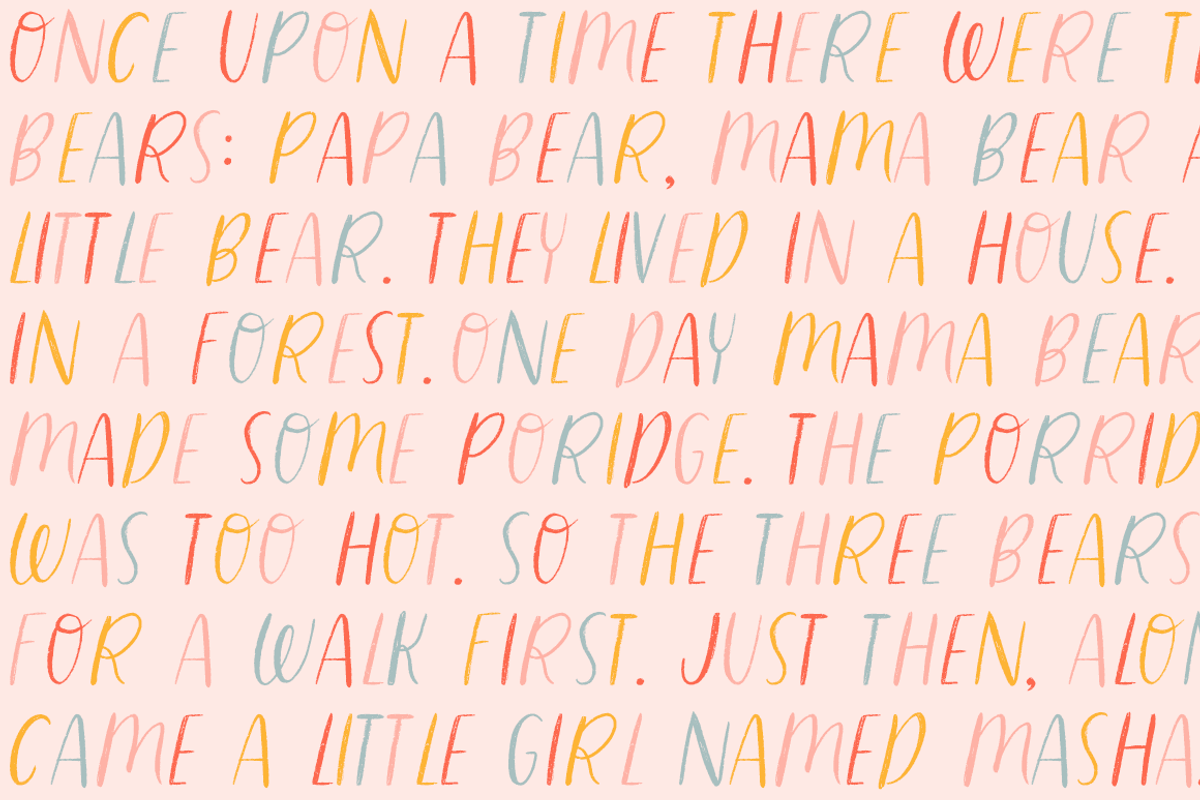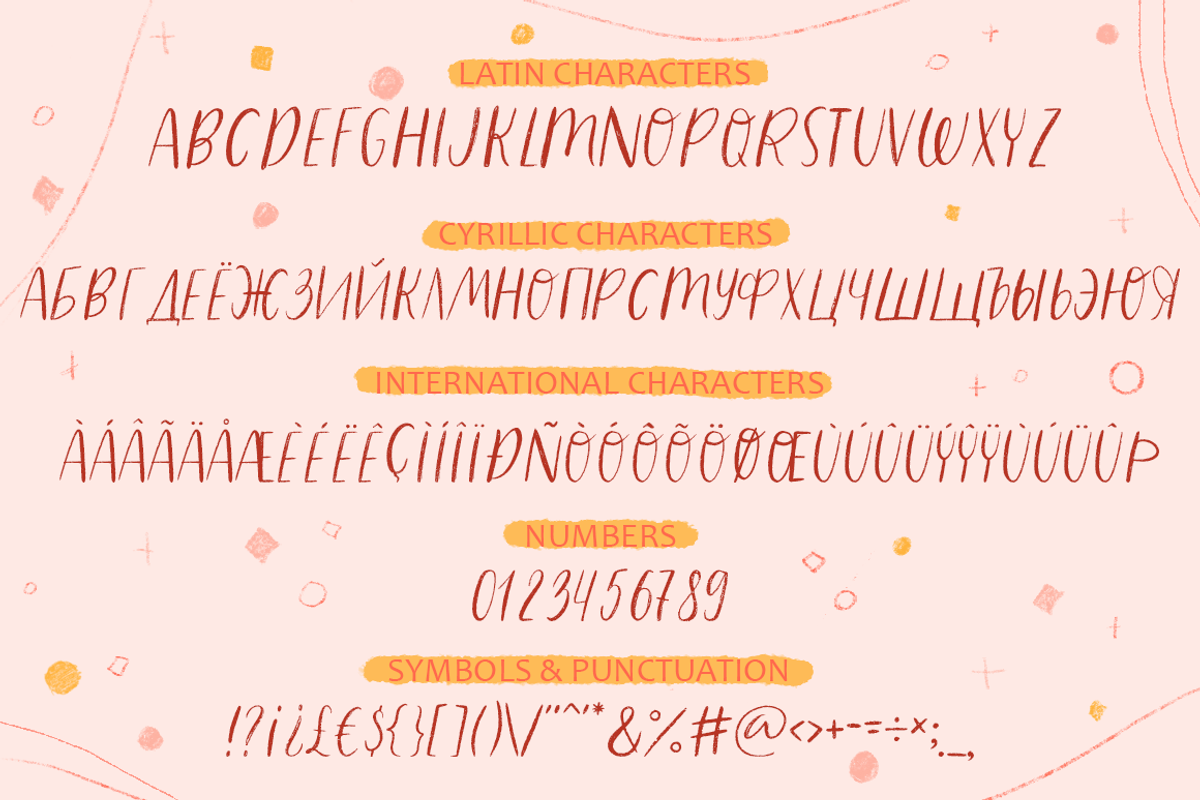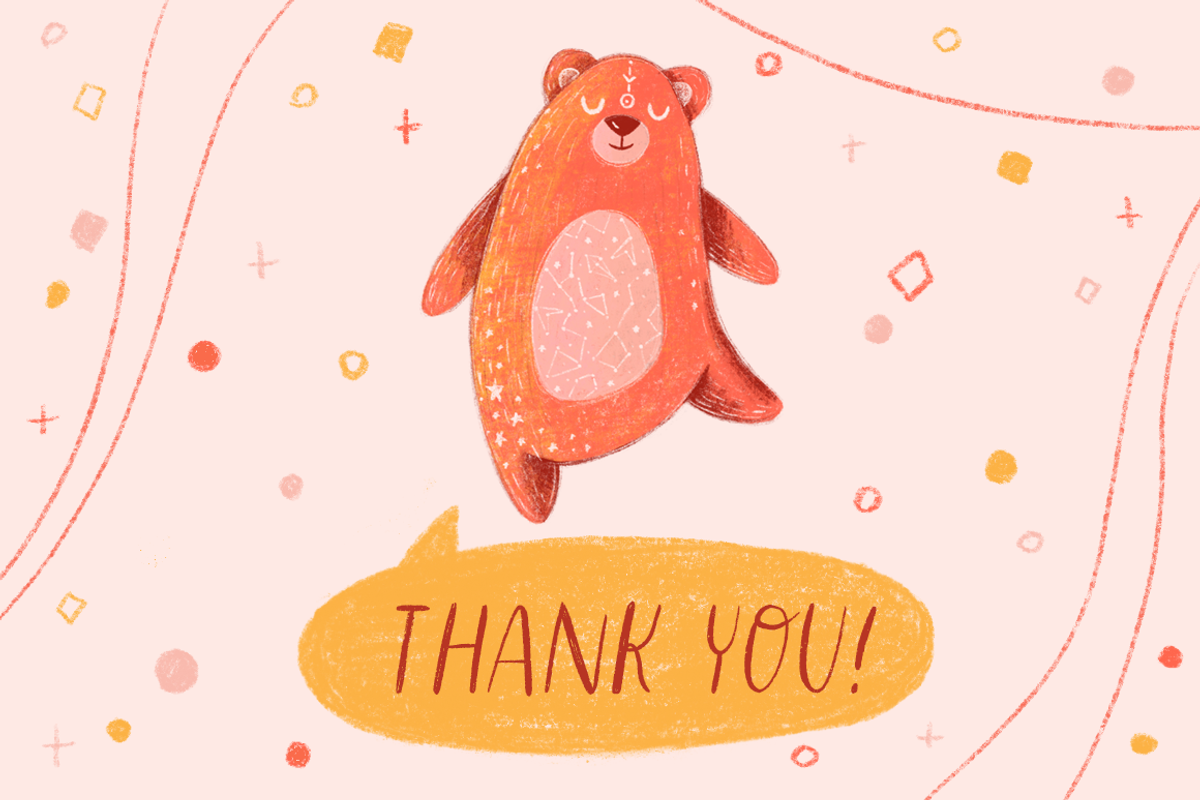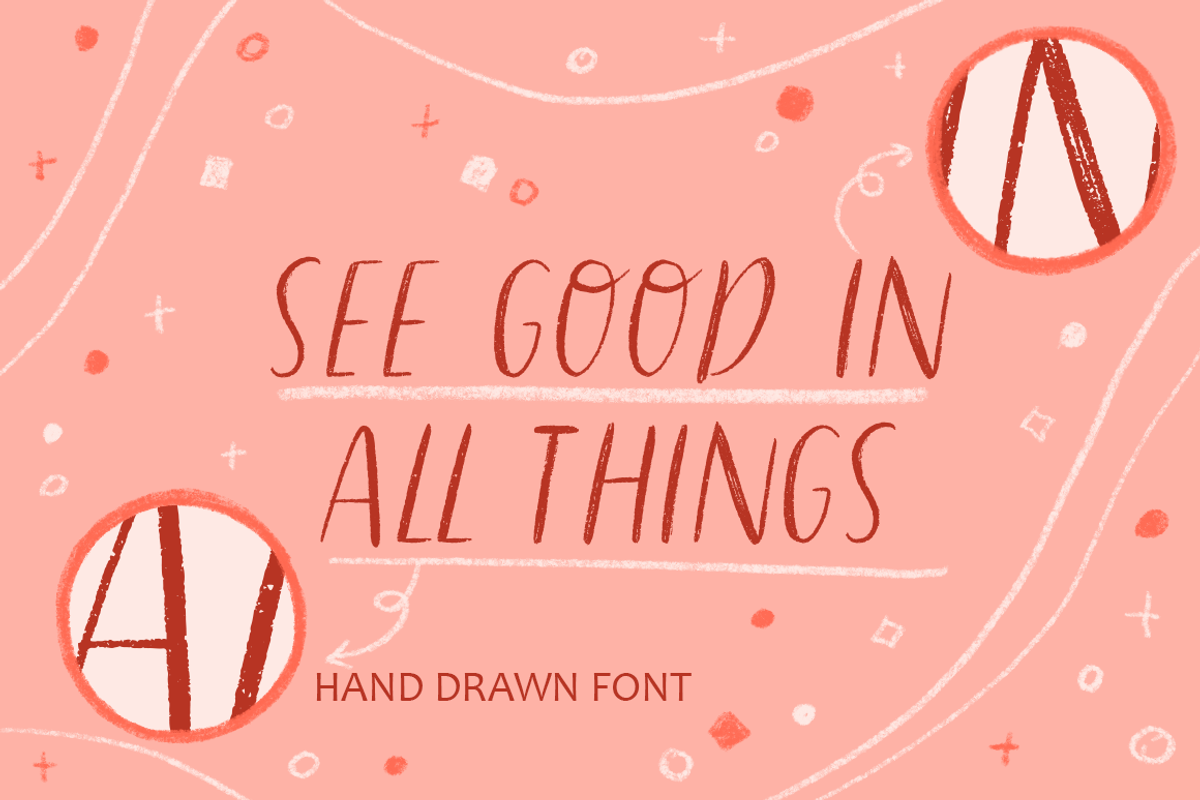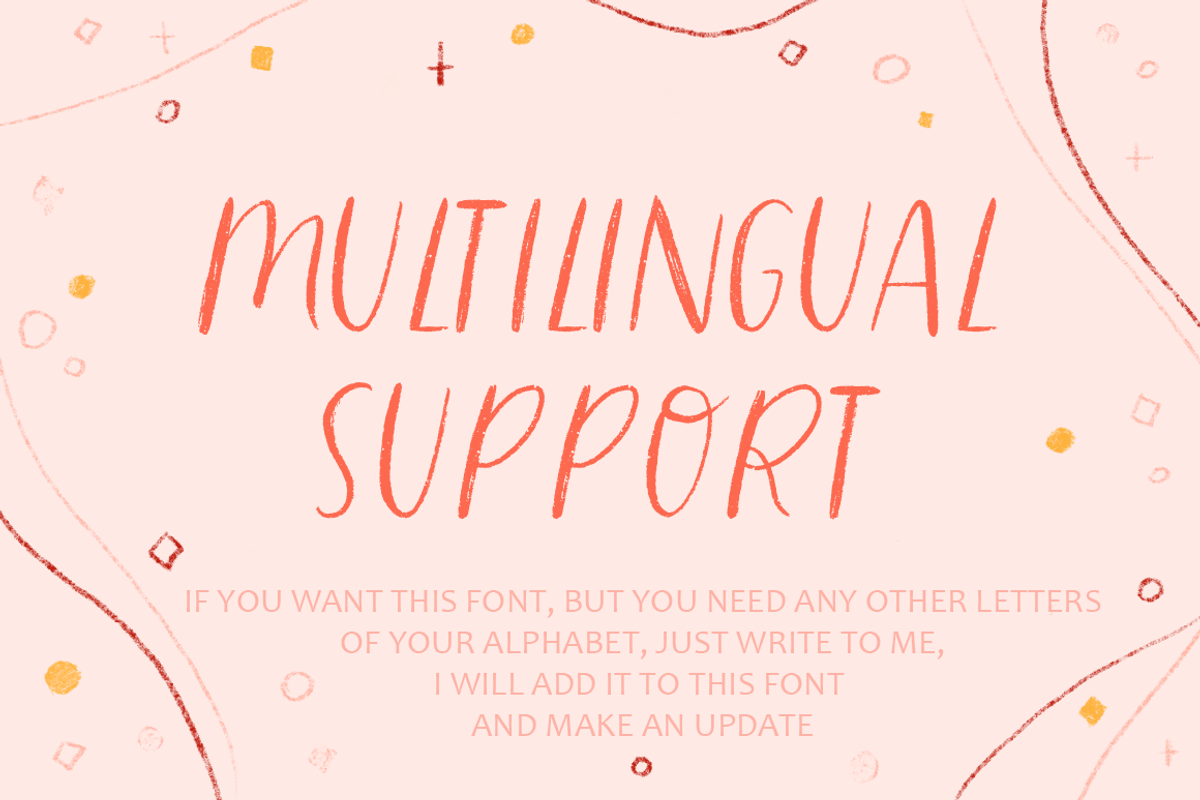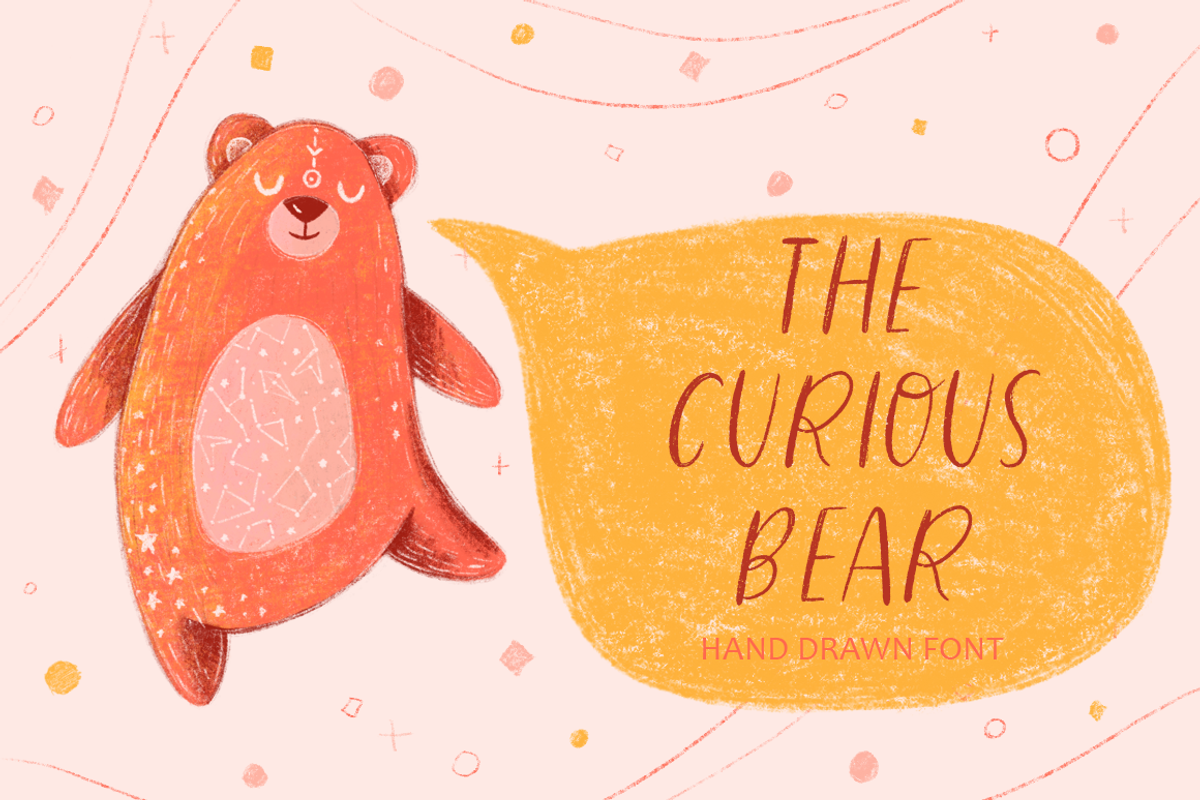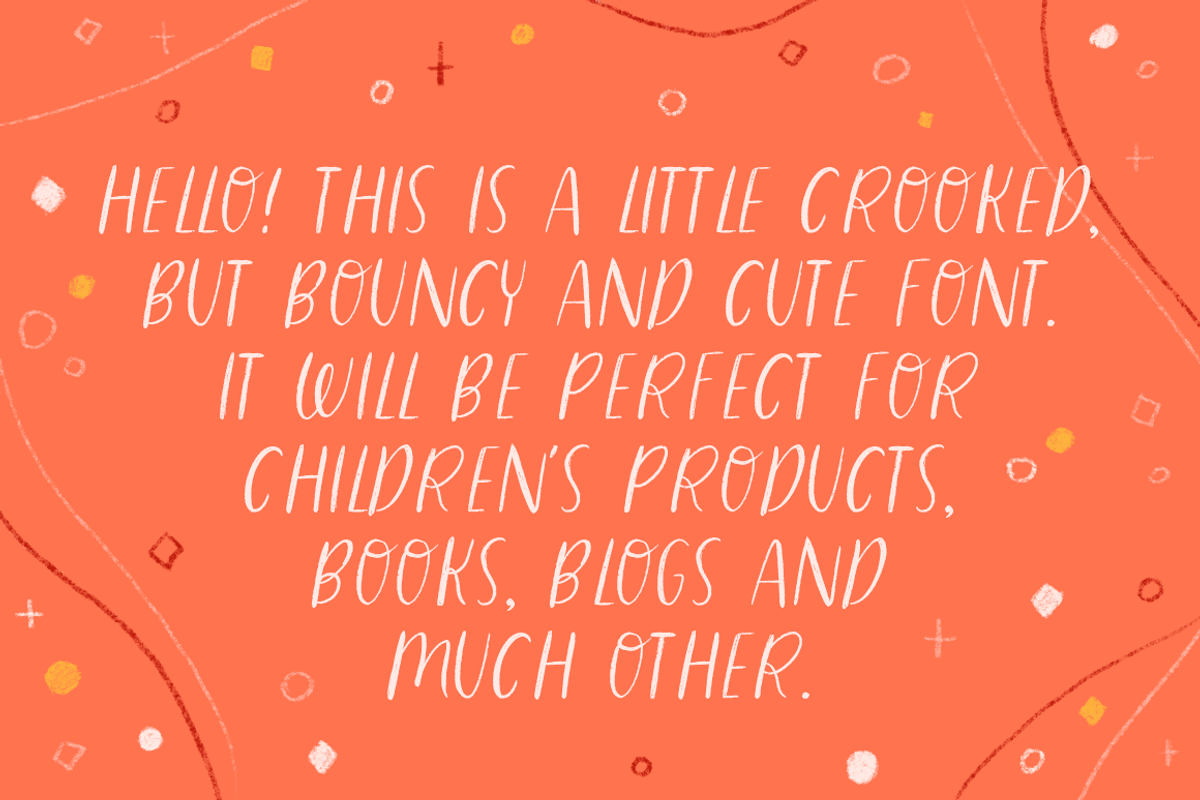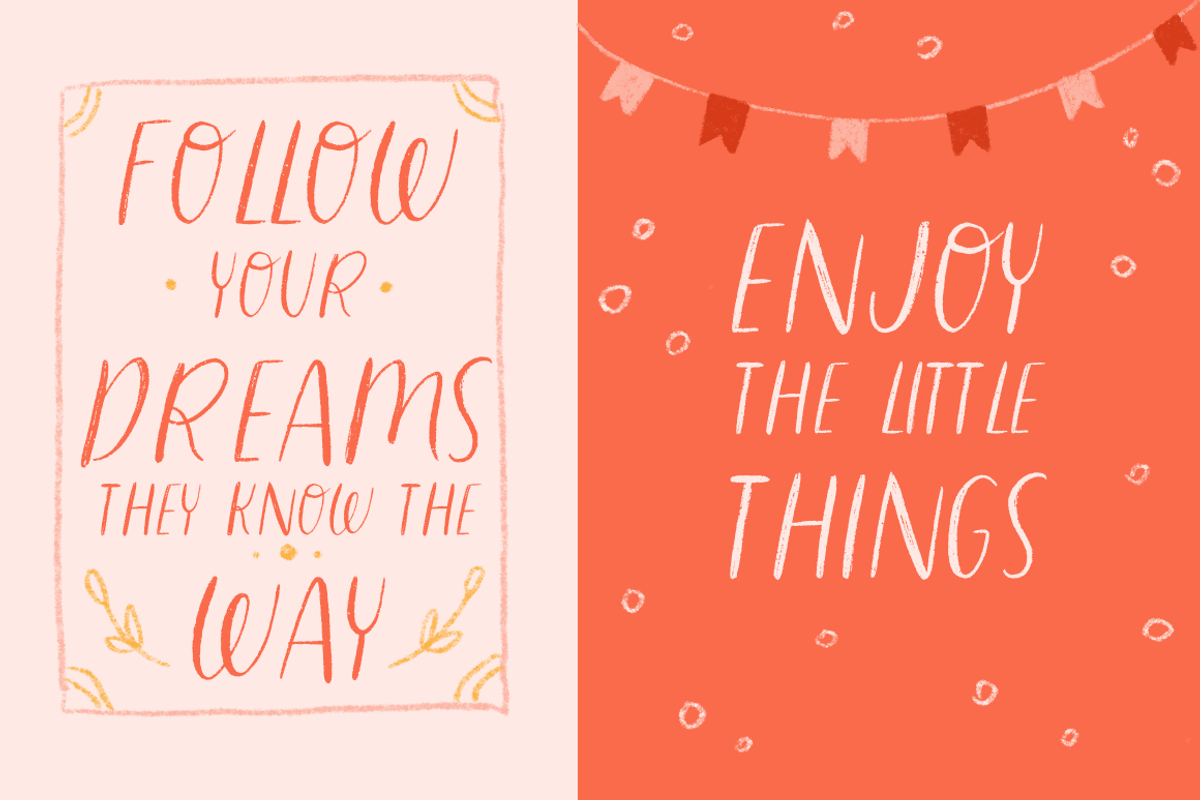
The Curious Bear Font is crooked, but on the same time cute and bouncy font. I intentionally made this font a little messy to convey lightness and liveliness as a handwritten font. I inspired by scandinavian children's motifs. This font is perfect for decorating the holiday, children's products, posters, stationery, kids t-shirt designs, calendars, journals, greeting cards and much more!
- Latin set A-Z
- Cyrillic set А-Я
- International characters
- Multilingual support - if you want this font but you need any other letters of your alphabet, just write to me. I will add it to this font and make an update.
- This is ONLY uppercase and ONLY italic.